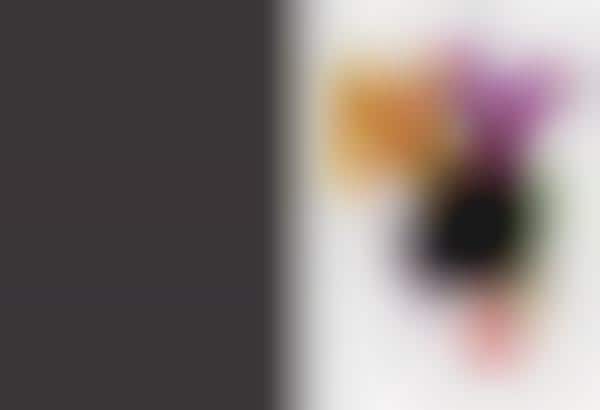
The Neue Magazine Typeface and Cities font was creatively designed. Inspired by urban experiences, these fonts are a unique depiction of the featured cities.
With font letters for places like New York, Berlin and Barcelona, The Neue Magazine Typeface and Cities font is definitely a representation of the magazine's love for graphic design. Check out the featured gallery to see these different pieces of typography in more detail.
City-Themed Typography
Neue Magazine Typeface and Cities Font Transcribes Urban Love into Letters